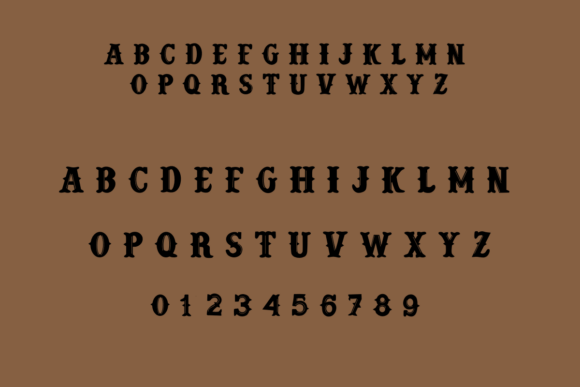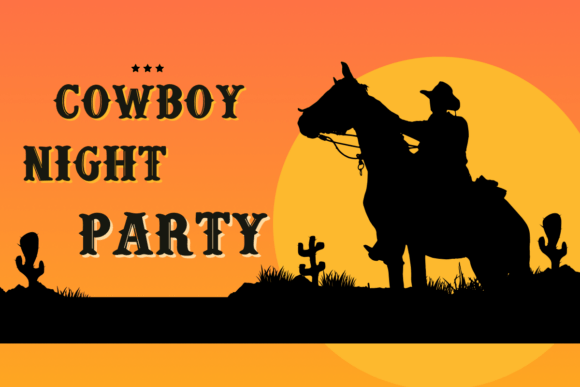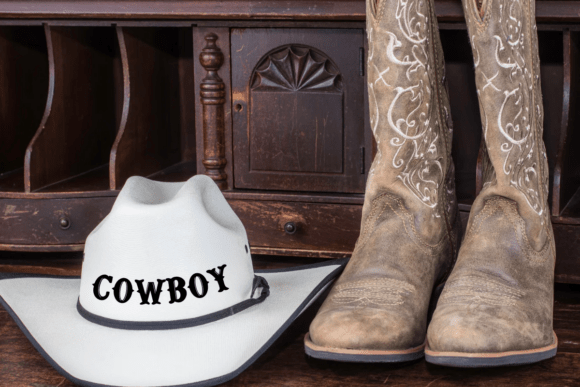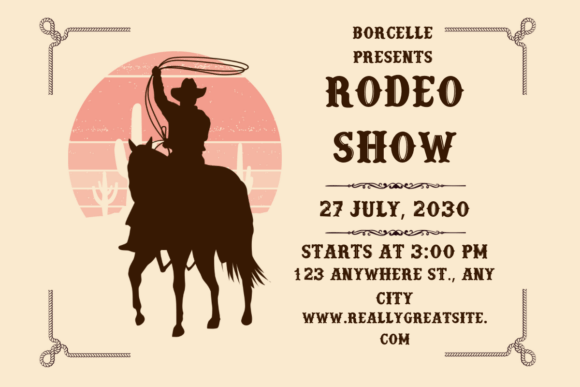
The Wild West in Type: Unleashing the Spirit of the Cowboy Font
Imagine you’re sipping whiskey in a dimly lit saloon, surrounded by the rough-riding outlaws and rugged cowboys of the Wild West. You’re brainstorming ideas for a new project, and suddenly, the words ‘Wanted’ and ‘Outlaw’ start to take shape in your mind. The rugged, bold letters transport you to a bygone era, where lawlessness and adventure ruled the open range. This is the moment when the Cowboy Font comes into play, infusing your design with the spirit of the Wild West.
Crafted with sharp serifs and a strong vintage aesthetic, the Cowboy Font is the perfect companion for designers looking to add a rugged edge to their projects. Whether you’re creating a film title, branding, or signage, this font brings a unique blend of grit, adventure, and frontier charm to your designs.
Cowboy Font Key Features
- Font Family: Cowboy is a serif font designed to evoke the classic feel of the American West.
- Unique Characteristics: Distinctive serif and stroke styles give the font a rugged, weathered look, perfect for creating a rustic or vintage atmosphere.
Cowboy Font Review
When I first laid eyes on Cowboy Font, I was immediately drawn to its unique charm ✨. The font’s rugged, distressed aesthetic perfectly captures the essence of the Wild West, making it a great fit for any project that needs a touch of ruggedness.
The font’s versatility is another major strength ✨. It comes in a range of weights, from light to bold, allowing designers to use it for everything from headings to body text. I also appreciate the font’s large character set, which includes a wide range of punctuation marks and symbols.
However, I do have a few reservations ⚠️. The font’s irregularities can sometimes make it difficult to read, particularly at smaller font sizes. Additionally, the font’s weight range is not as extensive as some other fonts on the market, which may limit its use in certain situations.
- Use it sparingly to add a touch of ruggedness to your design.
- Avoid using it for large blocks of text, as the irregularities can be distracting.
- Experiment with different weights and combinations of weights to find the right look for your project.
Overall, I think Cowboy Font is a great choice for designers who want to add a touch of uniqueness to their projects. With its rugged aesthetic and versatility, it’s a great addition to any font library.
Cowboy Font is ideal for creating rustic, country-themed designs. It’s commonly used in:
- Western-themed posters and flyers
- Ranch or farm branding
- Country-inspired wedding invitations
Tips for Getting the Most Out of Cowboy Font
To get the most out of Cowboy Font, use it in conjunction with earthy colors and distressed textures. You can also experiment with different font sizes and styles to create a unique look.